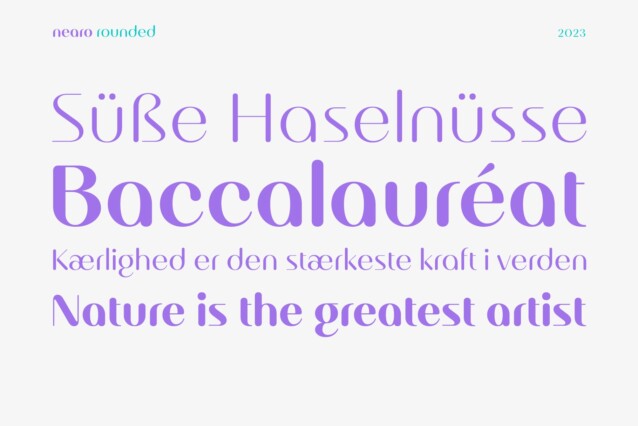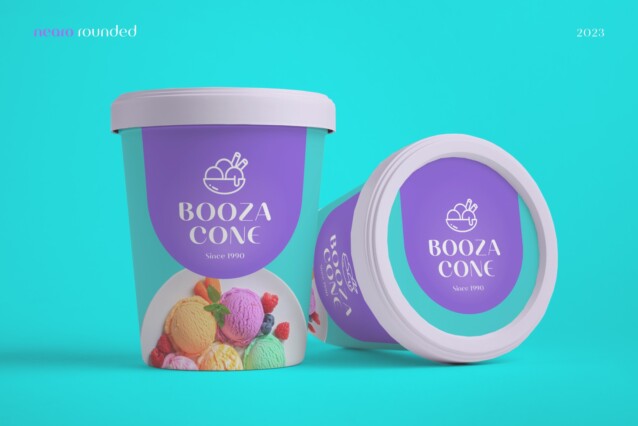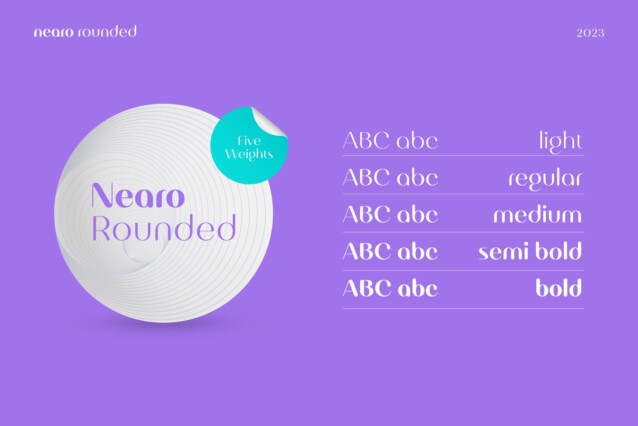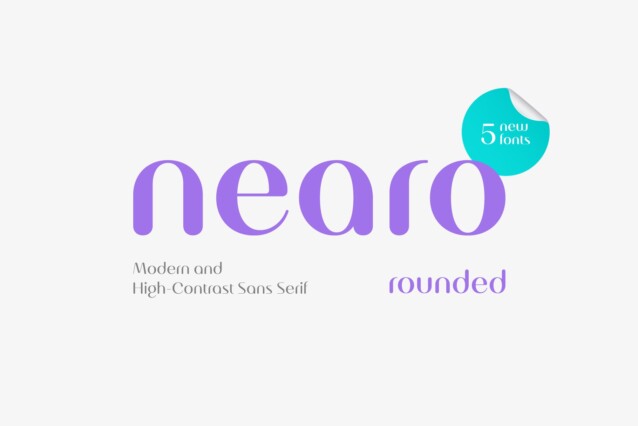
Nearo Rounded Font
Nearo Rounded Font is a sans serif typeface inspired by chunky yet funky type. Nearo Rounded features five high-contrast font styles and thick and thin round shapes making this font unique. Nearo Rounded can be applied to various formal projects, including logos, magazines, books, packaging, fashion, cosmetics, invitations, novels, labels, greeting cards, and other advertising.